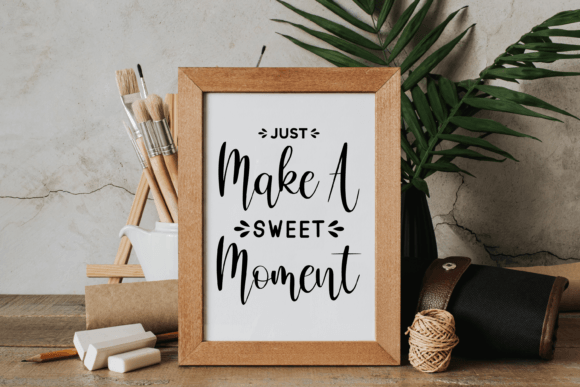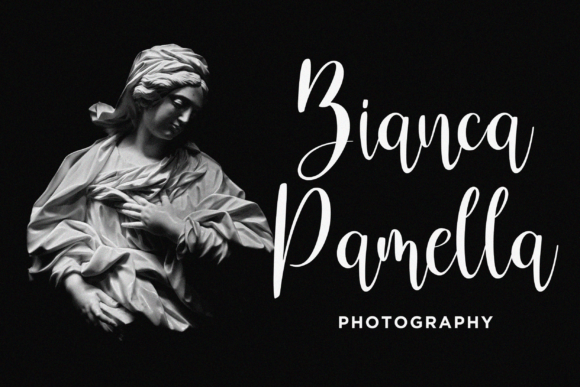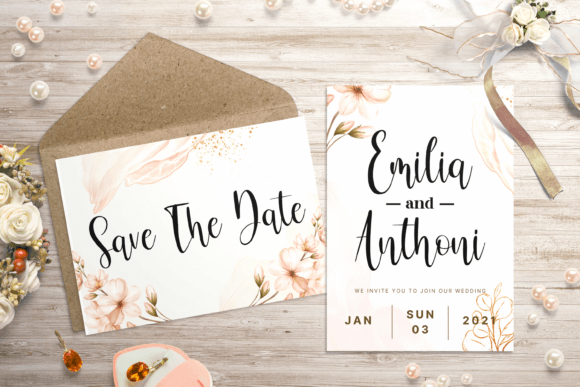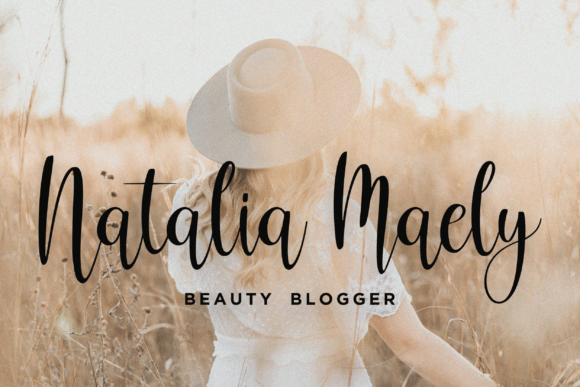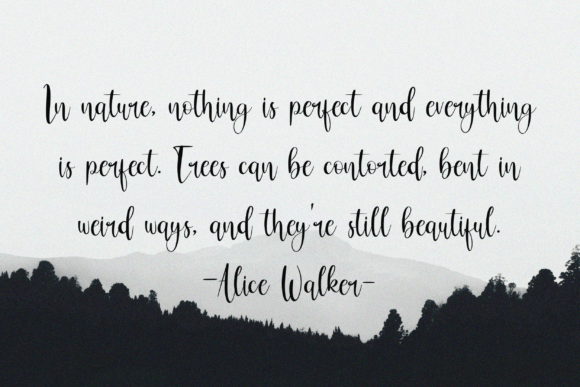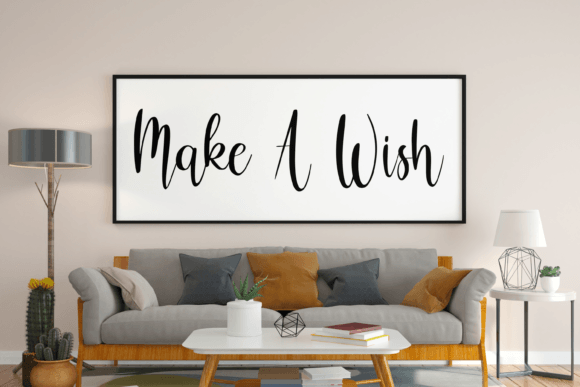
Introducing Charlotte Shine Font: Elevate Your Designs with a Touch of Elegance
In the world of typography, fonts play a pivotal role in conveying the essence and aesthetic of a design. Among the myriad of fonts available, Charlotte Shine Font stands out as a beacon of modernity and elegance. This modern handwritten script is not just a font; it’s an invitation to infuse your projects with a personal touch that speaks volumes. Whether you’re a designer looking to elevate your portfolio or a crafter aiming to add a bespoke feel to your creations, Charlotte Shine is your go-to choice.
The Essence of Charlotte Shine
Charlotte Shine is characterized by its natural and stylish appearance, making it the perfect fit for any project that calls for a handwritten feel. Its versatility is one of its most compelling features, seamlessly fitting into various design needs. From the intricate details of wedding invitations and thank you cards, to the creative expressions of quotes and greeting cards, Charlotte Shine brings a level of sophistication and charm that’s hard to replicate.
Applications of Charlotte Shine
The applications of Charlotte Shine are vast and varied. Here are a few ways you can incorporate this beautiful font into your designs:
- Wedding Invitations: Add an element of romance and elegance to your wedding invitations. The cursive flow of Charlotte Shine spells out love stories in the most beautiful way.
- Thank You Cards: Express gratitude with style. The font’s friendly yet sophisticated vibe makes it perfect for thank you notes that you want to stand out.
- Quotes: Bring quotes to life with a touch of personality. Charlotte Shine ensures that your inspirational or love quotes are presented with a flair that captures attention.
- Greeting Cards: Whether it’s a birthday, anniversary, or any occasion, greeting cards designed with Charlotte Shine are sure to leave a lasting impression.
- Logos and Business Cards: For businesses looking to add a personal touch to their branding, Charlotte Shine can be a game-changer. It offers a way to stand out in a corporate world by adding a hint of warmth and approachability.
Why Choose Charlotte Shine?
Choosing Charlotte Shine for your design projects comes with numerous benefits:
- Unique and Personalized: It offers a unique way to personalize your designs, making them memorable.
- Versatility: Its versatile nature means it can be used across a wide range of projects.
- Ease of Use: Designed to be user-friendly, Charlotte Shine can be easily integrated into various design software.
- Timeless Appeal: The font’s classic yet modern appeal ensures that your designs remain timeless and relevant.
Tips for Using Charlotte Shine
To make the most out of Charlotte Shine, consider the following tips:
- Pair with Complementary Fonts: When pairing Charlotte Shine with other fonts, choose ones that complement its cursive flow. Sans serif fonts often create a beautiful contrast.
- Play with Sizes: Experiment with different sizes to emphasize certain parts of your text. This can add depth and interest to your designs.
- Color Matters: The color of your text can significantly impact the overall feel. Soft pastels or rich jewel tones can enhance the elegance of Charlotte Shine.
Charlotte Shine Font is more than just a typeface; it’s a design element that can transform your projects with its elegance and versatility. Whether you’re designing for personal pleasure or professional needs, incorporating Charlotte Shine can elevate your work to new heights. Its natural, stylish appearance and wide range of applications make it an invaluable tool in the world of design. So, embrace the charm of Charlotte Shine and let your designs speak with a personalized voice that resonates with your audience.